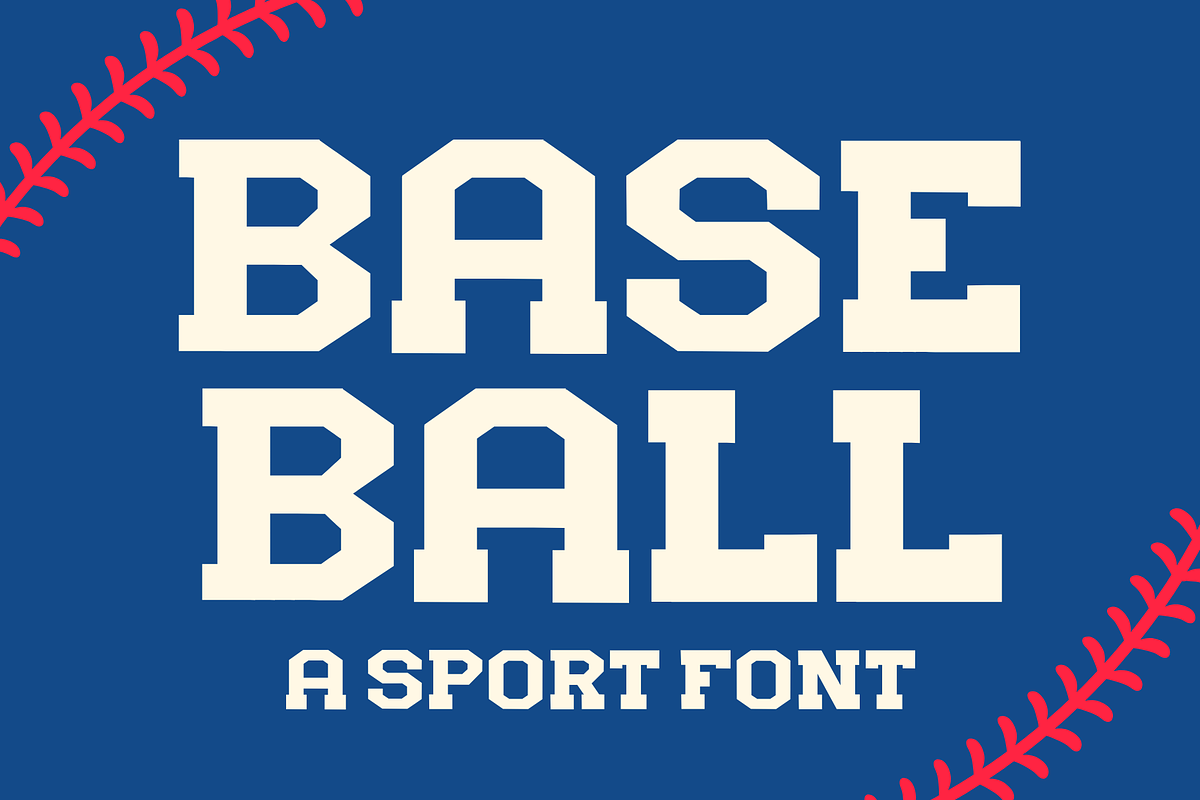
Baseball is a Cool Sport Font Free Download is a dynamic and energetic typeface inspired by the world of sports, particularly baseball. With its bold, athletic-inspired design, this font is perfect for creating sports logos, posters, event banners, team jerseys, and merchandise. Its strong letterforms and sporty style convey excitement and action, making it ideal for projects that celebrate the energy of sports.
Using the Baseball is a Cool Sport Font Free Download brings an authentic, sporty vibe to your designs. Whether you're working on branding for a sports team, designing promotional materials for a baseball event, or creating casual merchandise, this font captures the spirit of athleticism and fun.